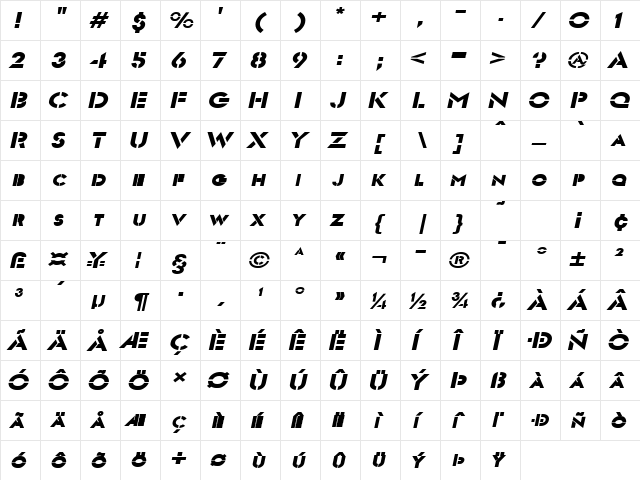
Templett Wide BoldItalic
Design Context for Templett Wide Typeface
Templett Wide is a composed and adaptable typeface that performs quietly and consistently across a wide range of design contexts. The slanted form adds forward momentum and visual energy. The heavy weight commands attention and anchors typographic hierarchies.
Pro Tip: Try Templett Wide for annotation and caption copy alongside an upright companion — the contrast in angle creates a dynamic but ordered typographic system.